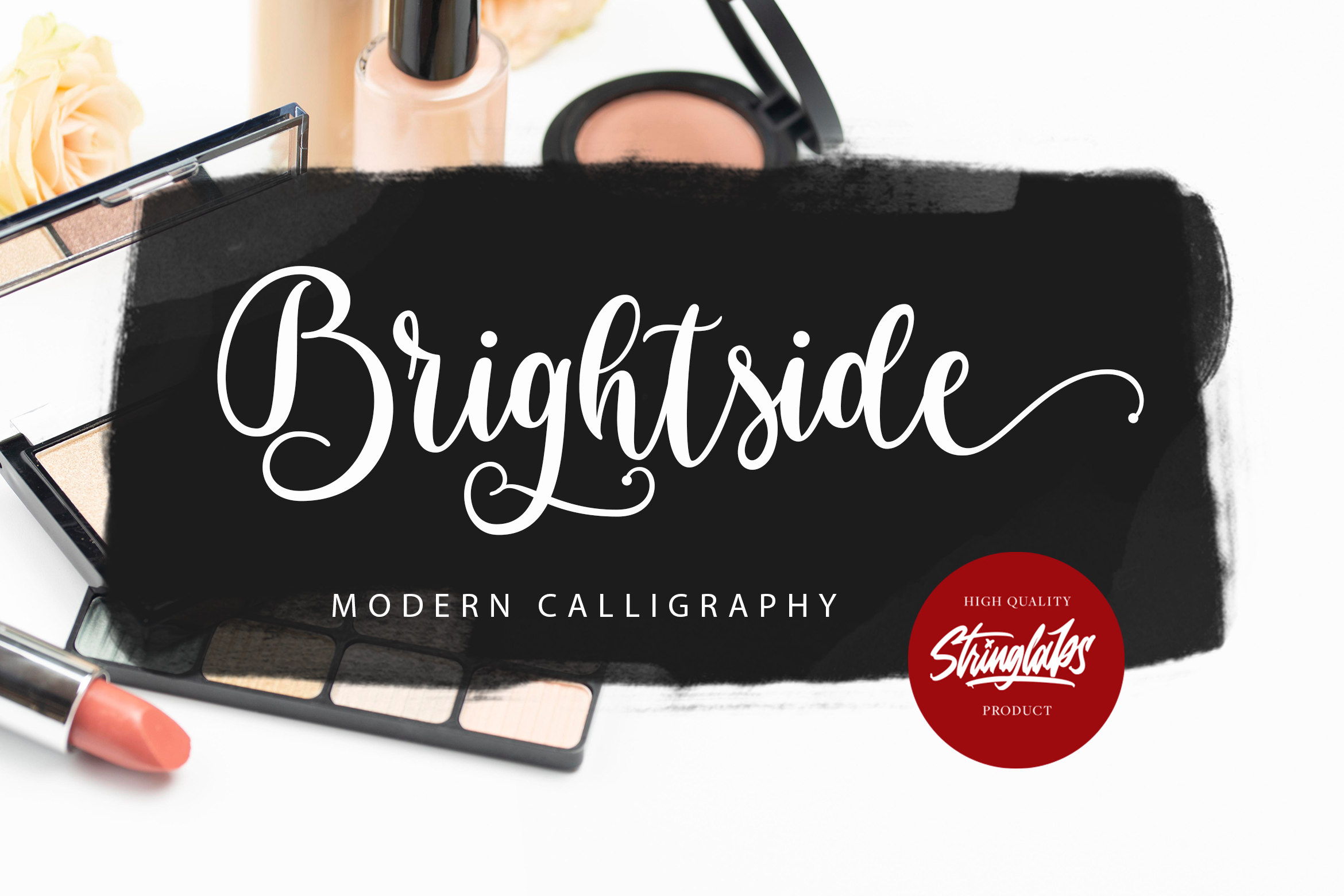
Brightside - Modern Calligraphy Font
Introducing Brightside - Modern Calligraphy Font
Brightside is a beautiful and modern calligraphy font. It is PUA encoded which means you can access all of the glyphs and swashes with ease! It features a varying baseline, smooth lines, gorgeous glyphs and stunning alternates. Brightside will turn any creative idea into a true piece of art!